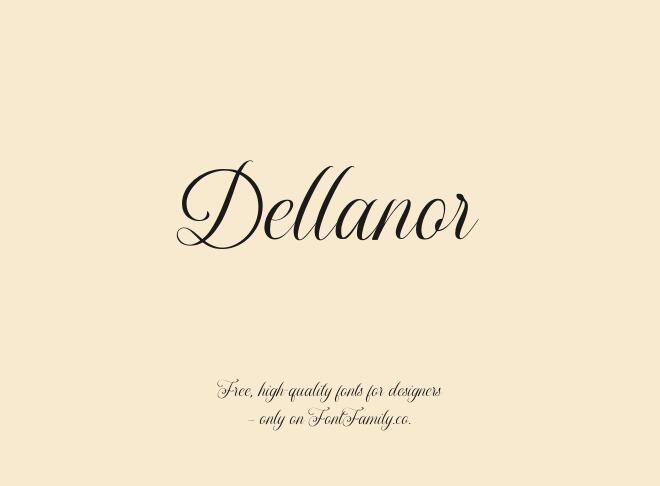
Dellanor Font
Dellanor Font is a stylish handwritten typeface, designed by Creative Typography Studio in 2019. This modern and minimalistic font is characterized by its elegant and fluid letterforms, making it perfect for creating a sophisticated and clean aesthetic in your design projects. Its unique style can be compared to handwritten scripts, yet it stands out with its own distinctive character. The Dellanor Font is best used for branding, logo design, social media posts, and wedding invitations. With its sleek lines and organic curves, it brings an air of elegance and simplicity to any design, making it a preferred choice for designers looking for a versatile, yet stylish font. It's free for personal use, adding to its appeal for freelance designers and hobbyists alike.